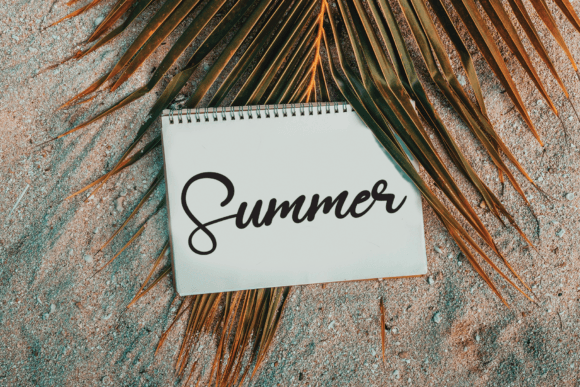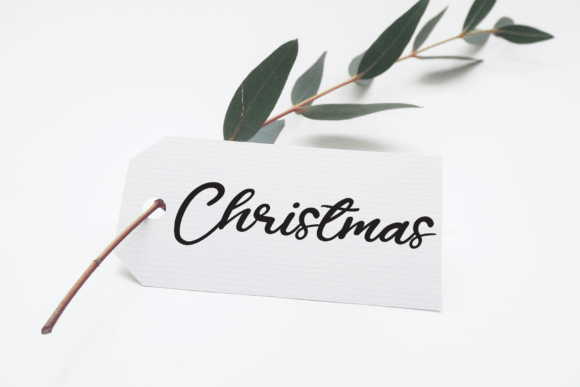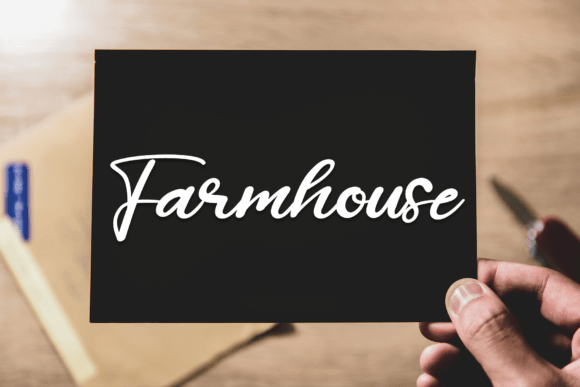
Billion Time Font: The Fun and Friendly Handwritten Font for All Occasions
Are you tired of using the same old fonts for your designs and crafts? Look no further than the Billion Time Font! This fun and friendly handwritten font is perfect for adding a personal touch to your digital designs, presentations, greeting cards, and more. In this article, we’ll take a closer look at the Billion Time Font and explore its features, benefits, and uses.
What is Billion Time Font?
Billion Time Font is a unique and charming handwritten font that is sure to capture the hearts of designers and crafters alike. Its playful and approachable style makes it perfect for a wide range of projects, from digital designs and presentations to greeting cards and crafts.
Features of Billion Time Font
So, what makes Billion Time Font so special? Here are just a few of its key features:
- Handwritten style: Billion Time Font has a beautiful, handwritten style that adds a personal touch to any project.
- Fun and friendly: This font is designed to be fun and friendly, making it perfect for projects that require a playful touch.
- Versatile: Billion Time Font can be used for a wide range of projects, from digital designs and presentations to greeting cards and crafts.
- Easy to read: Despite its playful style, Billion Time Font is easy to read, making it perfect for use in body text.
Benefits of Using Billion Time Font
So, why should you choose Billion Time Font for your next project? Here are just a few of the benefits of using this amazing font:
- Adds a personal touch: Billion Time Font adds a personal touch to any project, making it perfect for designers and crafters who want to create unique and eye-catching designs.
- Perfect for crafts: This font is perfect for use in crafts, such as scrapbooking, card making, and journaling.
- Great for digital designs: Billion Time Font can be used for digital designs, such as social media graphics, blog posts, and presentations.
Uses of Billion Time Font
So, what can you use Billion Time Font for? The possibilities are endless! Here are just a few ideas to get you started:
- Crafts: Use Billion Time Font for scrapbooking, card making, journaling, and other crafts.
- Digital designs: Use this font for social media graphics, blog posts, presentations, and other digital designs.
- Greeting cards: Create beautiful and unique greeting cards using Billion Time Font.
- Signs and posters: Use this font for signs and posters, such as event announcements, advertisements, and more.
In conclusion, Billion Time Font is a fun and friendly handwritten font that is perfect for designers and crafters alike. Its playful and approachable style makes it perfect for a wide range of projects, from digital designs and presentations to greeting cards and crafts. With its ease of use, versatility, and unique style, Billion Time Font is sure to become your go-to font for all your design needs.